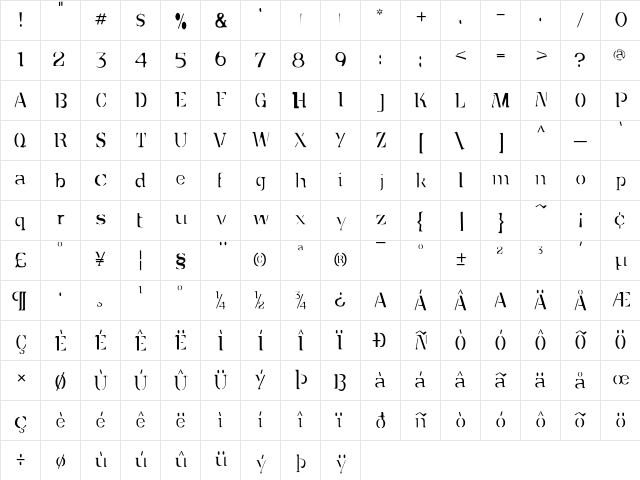
Dumpster Regular
Design Context for Dumpster Typeface
Dumpster takes a measured approach to typography — its balanced proportions and neutral character make it a reliable workhorse for both digital and print work.
Pro Tip: Pair Dumpster with a font of contrasting weight or personality to build a more expressive typographic hierarchy.